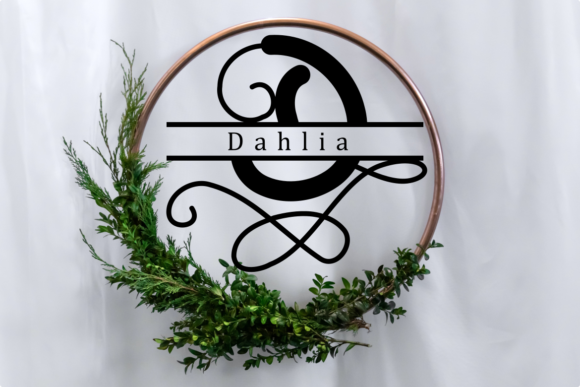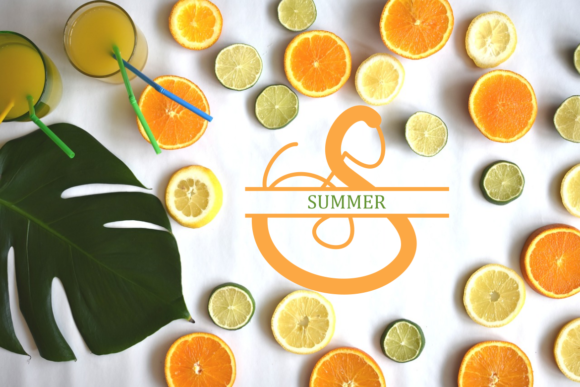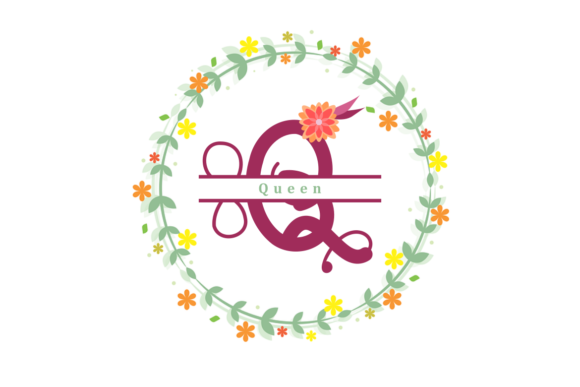
Introducing Alamanda Monogram Font: Elevate Your Designs with Elegance
Are you a designer or crafter looking for a font that exudes elegance and sophistication? Look no further than the Alamanda Monogram Font. This stunning display font features sweet swashes that will instantly elevate your design projects to the highest level. From branding and headings to wedding designs, invitations, signatures, logos, labels, and more, Alamanda Monogram is the perfect choice for anyone seeking to add a touch of luxury to their work.
What Makes Alamanda Monogram Font So Special?
Alamanda Monogram Font is a unique and beautiful font that boasts a range of features that set it apart from other fonts. Its elegant swashes add a touch of sophistication to any design, making it perfect for high-end branding, wedding designs, and other special projects. The font is also highly versatile, allowing you to use it for a wide range of applications, from headings and titles to logos and labels.
Key Features of Alamanda Monogram Font
• Elegant Swashes: Alamanda Monogram Font features beautiful, flowing swashes that add a touch of elegance to any design.
• Versatile: This font is perfect for a wide range of design projects, from branding and headings to wedding designs, invitations, signatures, logos, labels, and more.
• High-Quality: Alamanda Monogram Font is a high-quality font that is designed to produce crisp, clear results at any size.
How to Use Alamanda Monogram Font in Your Designs
• Branding: Use Alamanda Monogram Font to create elegant and sophisticated branding materials, such as logos, business cards, and letterheads.
• Wedding Designs: This font is perfect for wedding designs, including invitations, save-the-date cards, and wedding stationery.
• Headings and Titles: Use Alamanda Monogram Font to add a touch of elegance to your headings and titles.
• Signatures and Labels: This font is also great for creating beautiful signatures and labels.
Why Choose Alamanda Monogram Font?
There are many reasons why you should choose Alamanda Monogram Font for your design projects. Here are just a few:
• Unique and Elegant: Alamanda Monogram Font is a unique and elegant font that will set your designs apart from the rest.
• High-Quality: This font is a high-quality font that is designed to produce crisp, clear results at any size.
• Versatile: Alamanda Monogram Font is perfect for a wide range of design projects, making it a great addition to any design library.
In conclusion, Alamanda Monogram Font is a stunning display font that features sweet swashes and is perfect for designers and crafters looking to add a touch of elegance to their work. With its elegant swashes, versatility, and high-quality design, this font is sure to elevate your design projects to the highest level. Whether you’re working on branding, wedding designs, headings, signatures, logos, labels, or more, Alamanda Monogram Font is the perfect choice.